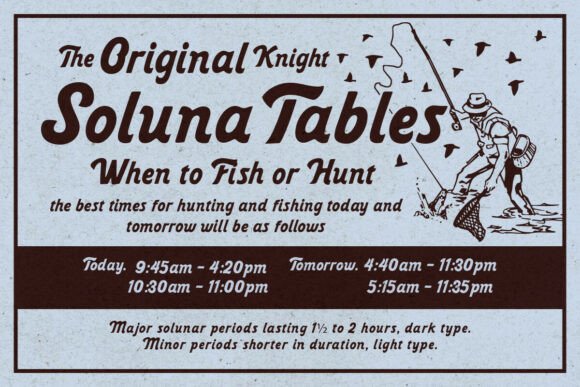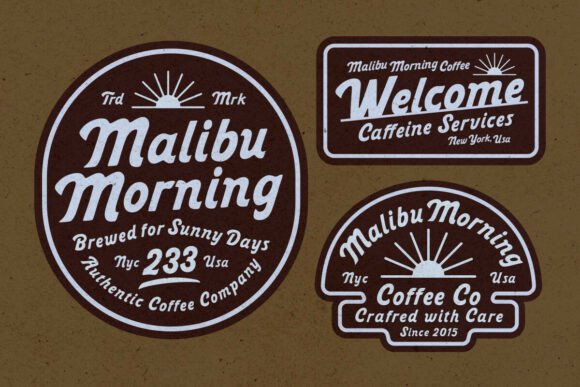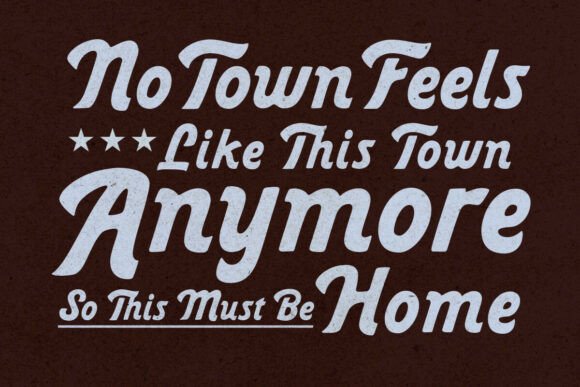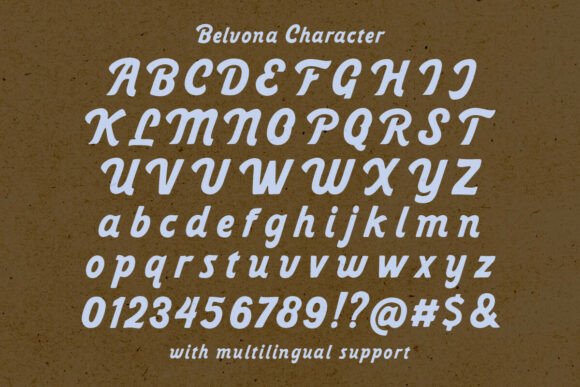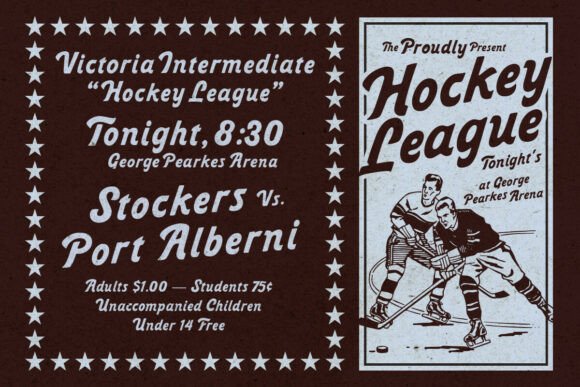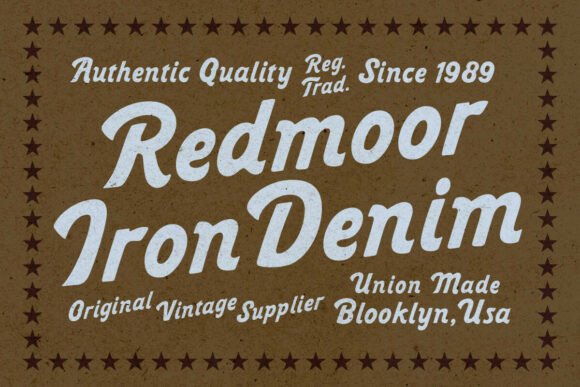
Introducing Belvona Vintage Font: A Timeless Classic with a Warm, Golden Era Charm
Are you a designer or crafter looking for a font that embodies the essence of classic signage and old-school storefront lettering? Look no further than Belvona Vintage Font. Inspired by the smooth, golden-era charm of bygone days, this typeface brings a warm, slow-roasted attitude to any design project. From steakhouse signs to heritage logos, café branding, and retro posters, Belvona Vintage is the perfect choice for those seeking a timeless, vintage aesthetic.
The Story Behind Belvona Vintage
Belvona Vintage Font is a carefully crafted typeface that draws inspiration from the classic signage and storefront lettering of the past. Its smooth, flowing lines and warm, inviting curves evoke the feeling of a bygone era, when life was slower and more elegant. The font’s creator aimed to capture the essence of this golden era, infusing Belvona Vintage with a sense of nostalgia and timelessness.
Design Features and Characteristics
Belvona Vintage Font boasts a range of design features and characteristics that make it an ideal choice for designers and crafters. Some of its key features include:
- Smooth, flowing lines: Belvona Vintage’s smooth lines and curves create a sense of fluidity and elegance, making it perfect for designs that require a touch of sophistication.
- Warm, inviting curves: The font’s warm, inviting curves add a sense of friendliness and approachability to any design, making it ideal for brands and businesses seeking to establish a personal connection with their audience.
- Classic, timeless aesthetic: Belvona Vintage’s classic design ensures that it remains timeless, unaffected by fleeting trends and fashions.
- Highly legible: The font’s clear, legible design makes it perfect for use in a variety of applications, from signage and logos to posters and branding materials.
Use Cases for Belvona Vintage Font
Belvona Vintage Font is a versatile typeface that can be used in a wide range of design applications. Some of the most popular use cases include:
- Steakhouse signs: Belvona Vintage’s classic, elegant design makes it perfect for steakhouse signs and other restaurant branding materials.
- Heritage logos: The font’s timeless aesthetic and warm, inviting curves make it an ideal choice for heritage logos and branding materials.
- Café branding: Belvona Vintage’s smooth, flowing lines and classic design make it a great choice for café branding and signage.
- Retro posters: The font’s vintage aesthetic and highly legible design make it perfect for use in retro posters and other promotional materials.
Why Choose Belvona Vintage Font?
So why choose Belvona Vintage Font for your design project? Here are just a few reasons:
- Unique, distinctive aesthetic: Belvona Vintage offers a unique, distinctive aesthetic that sets it apart from other fonts and typefaces.
- High-quality design: The font’s high-quality design ensures that it remains legible and visually appealing, even at small sizes.
- Versatile: Belvona Vintage is a versatile typeface that can be used in a wide range of design applications.
- Timeless: The font’s classic design ensures that it remains timeless, unaffected by fleeting trends and fashions.
In conclusion, Belvona Vintage Font is a timeless classic that brings a warm, golden-era charm to any design project. With its smooth, flowing lines, warm, inviting curves, and classic aesthetic, this typeface is perfect for designers and crafters seeking to add a touch of vintage elegance to their work. Whether you’re creating a steakhouse sign, heritage logo, café branding, or retro poster, Belvona Vintage is the perfect choice.